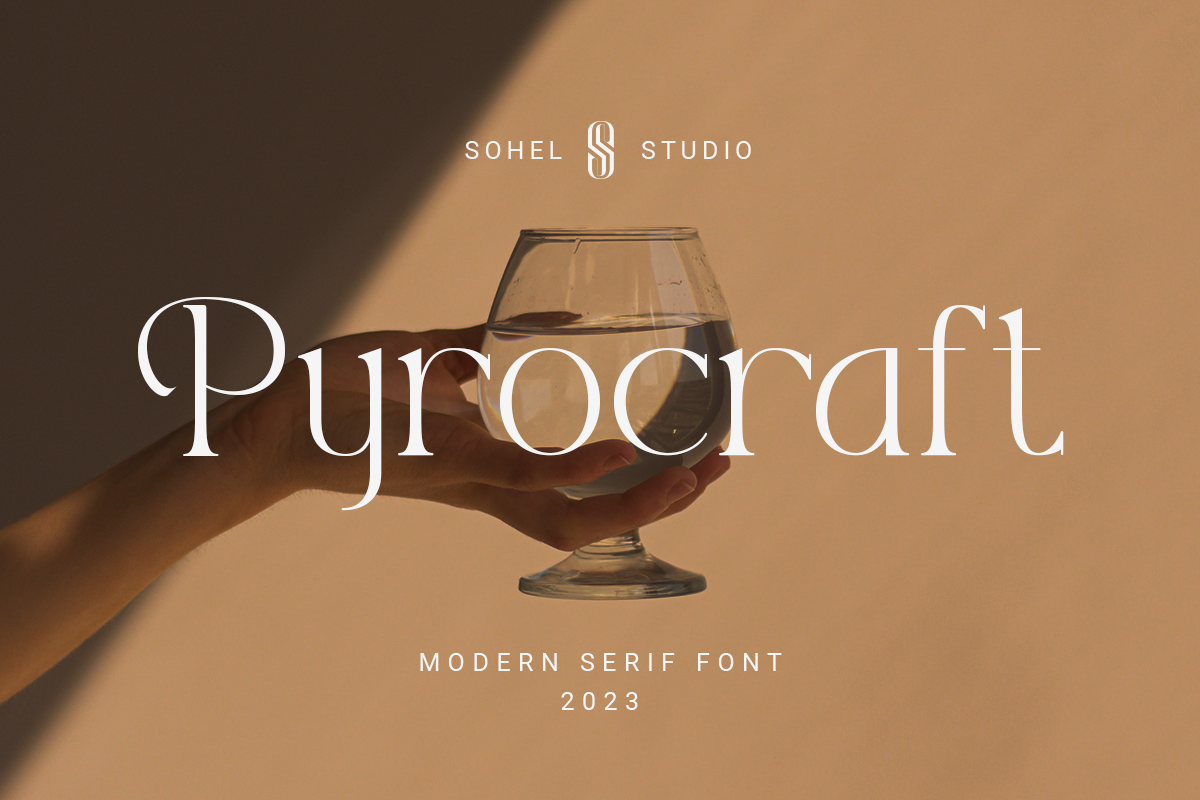
Pyrocraft Modern Editorial Font Free Download is a sophisticated and stylish typeface crafted for high-end editorial layouts and luxury branding. With its sharp contrasts, refined serifs, and contemporary structure, Pyrocraft is ideal for magazines, fashion lookbooks, headlines, portfolios, and upscale packaging.
This font exudes confidence and creativity—each character is meticulously designed to bring elegance and clarity to your compositions. Whether you're crafting bold titles or elegant pull quotes, Pyrocraft delivers visual drama while maintaining perfect readability.
Its modern yet timeless design makes it a versatile asset for both digital and print applications. If you’re aiming for polished aesthetics and professional impact, Pyrocraft is the font to trust.